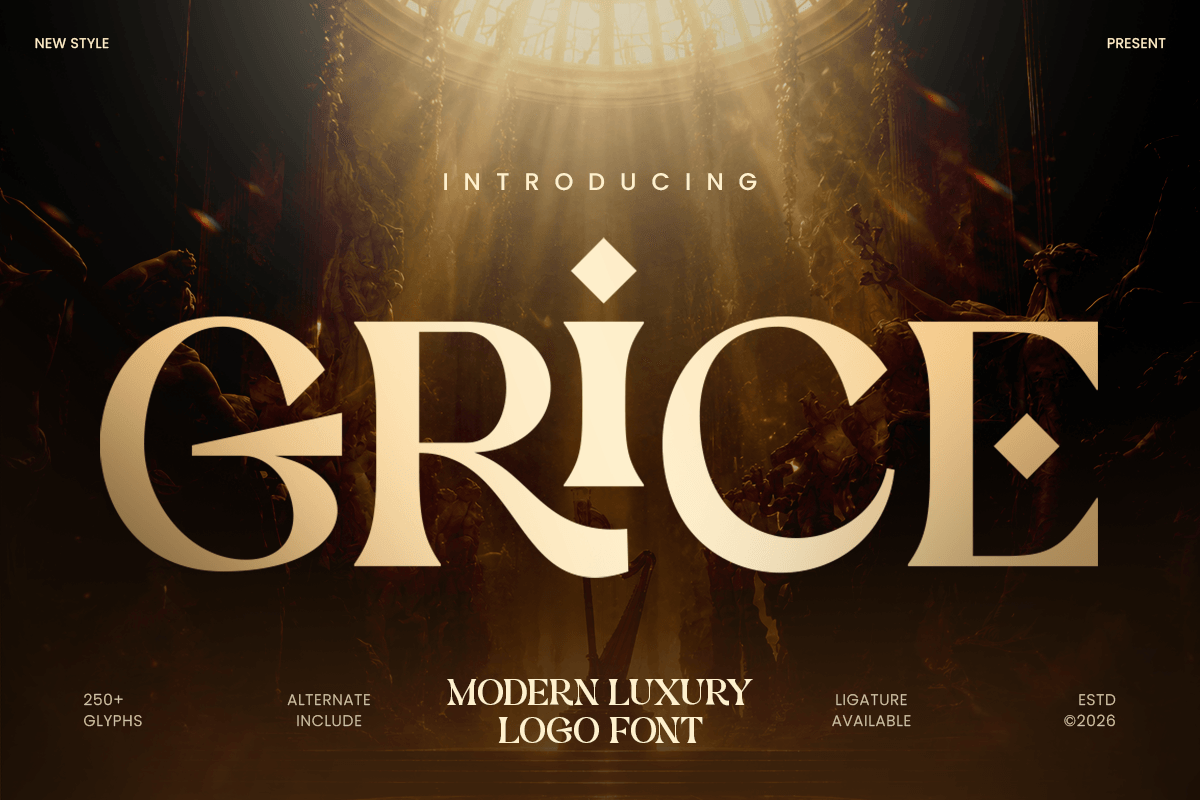
Grice
-Modern Luxury Logo Font
Grice - Modern Luxury Logo Font
GRICE is a modern luxury logo font designed to create refined and memorable visual identities. With elegant letterforms, balanced proportions, and a sophisticated contemporary style, this typeface is perfect for luxury logos, fashion branding, premium packaging, editorial titles, and high-end creative projects.
Crafted for designers who appreciate modern simplicity with a luxurious touch, GRICE combines clean aesthetics with a distinctive personality. Its polished structure helps every wordmark, headline, and brand composition feel exclusive, confident, and professionally crafted.
Whether used for fashion labels, beauty brands, boutique identities, wedding stationery, or premium marketing visuals, GRICE delivers an elegant typographic presence that performs beautifully across both print and digital media.
GRICE – Modern Luxury Logo Font Features
• Modern luxury design with refined logo-focused letterforms
• Perfect for branding, logos, packaging, editorials, and premium identities
• Elegant proportions with a clean and sophisticated appearance
• Ideal for fashion, beauty, lifestyle, wedding, and boutique industries
• OpenType features for enhanced typographic styling
Create a refined luxury identity with GRICE – the perfect modern logo font for premium branding, elegant packaging, and sophisticated design. ✨